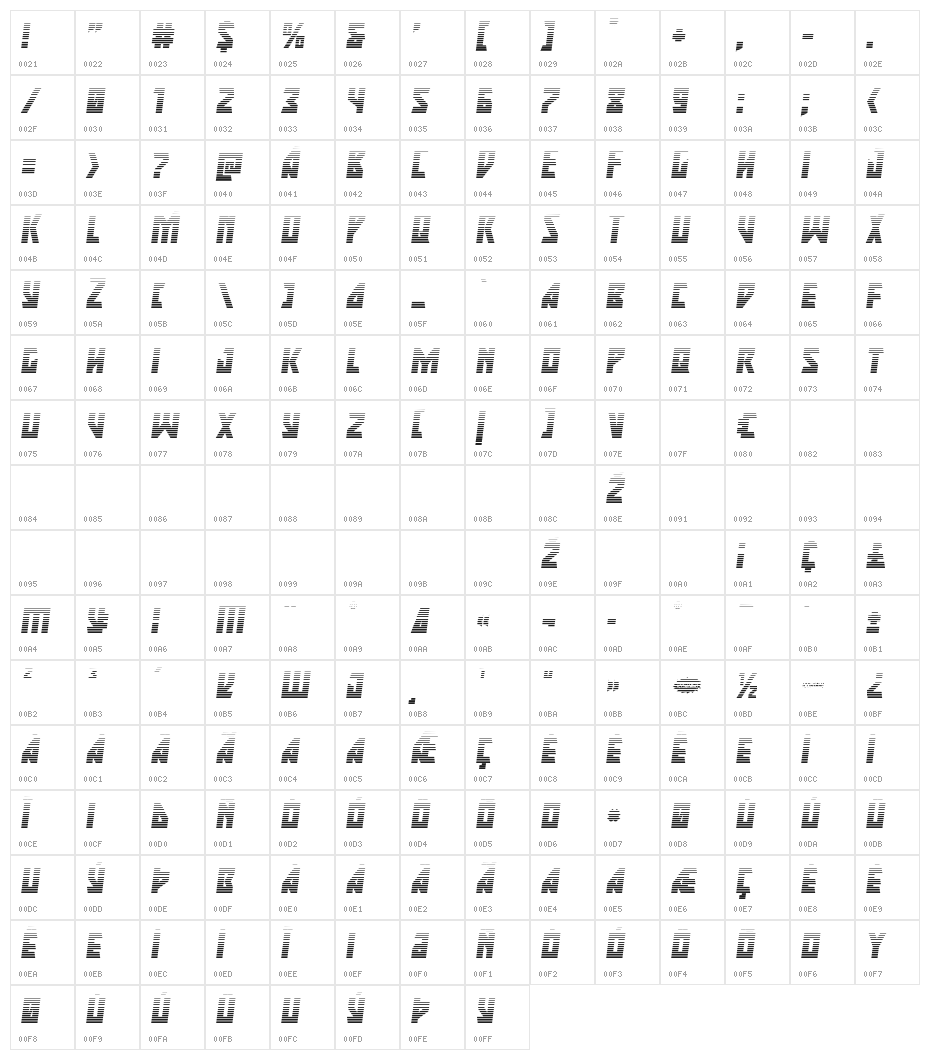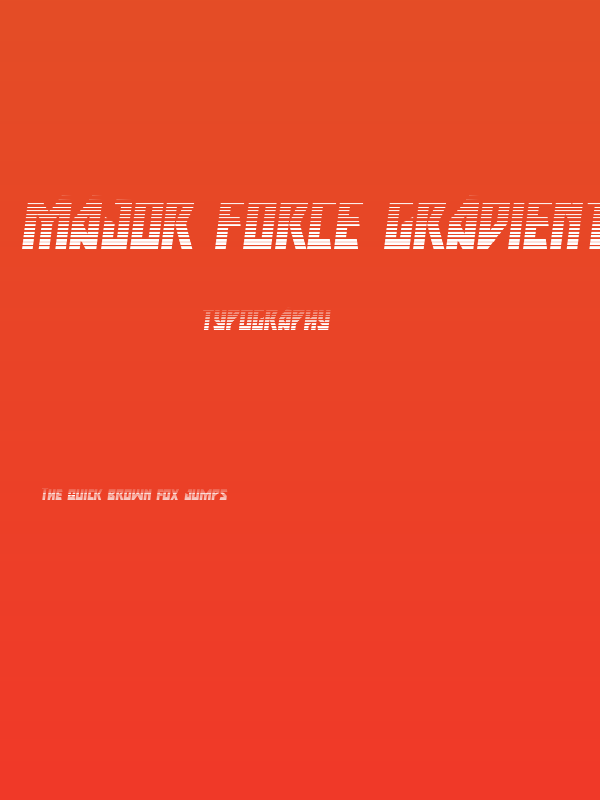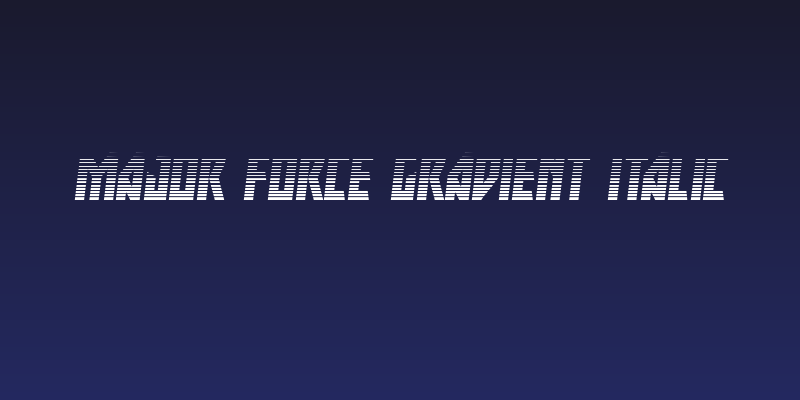
Major Force Gradient Italic Font
Major Force Gradient Italic Description
This font features a bold, dynamic design with a gradient effect that creates a sense of movement and energy. The characters are constructed with horizontal lines that vary in thickness, giving a striped appearance. The italic slant adds a forward-leaning, futuristic feel, making it ideal for projects that require a modern and impactful look. The uppercase and lowercase letters maintain a consistent style, while the numbers and special characters complement the overall aesthetic. The font's unique design makes it stand out, perfect for attention-grabbing headlines or logos.
| Proposed Projects | Ideal for sports branding, futuristic posters, tech-related logos, and dynamic headlines. |